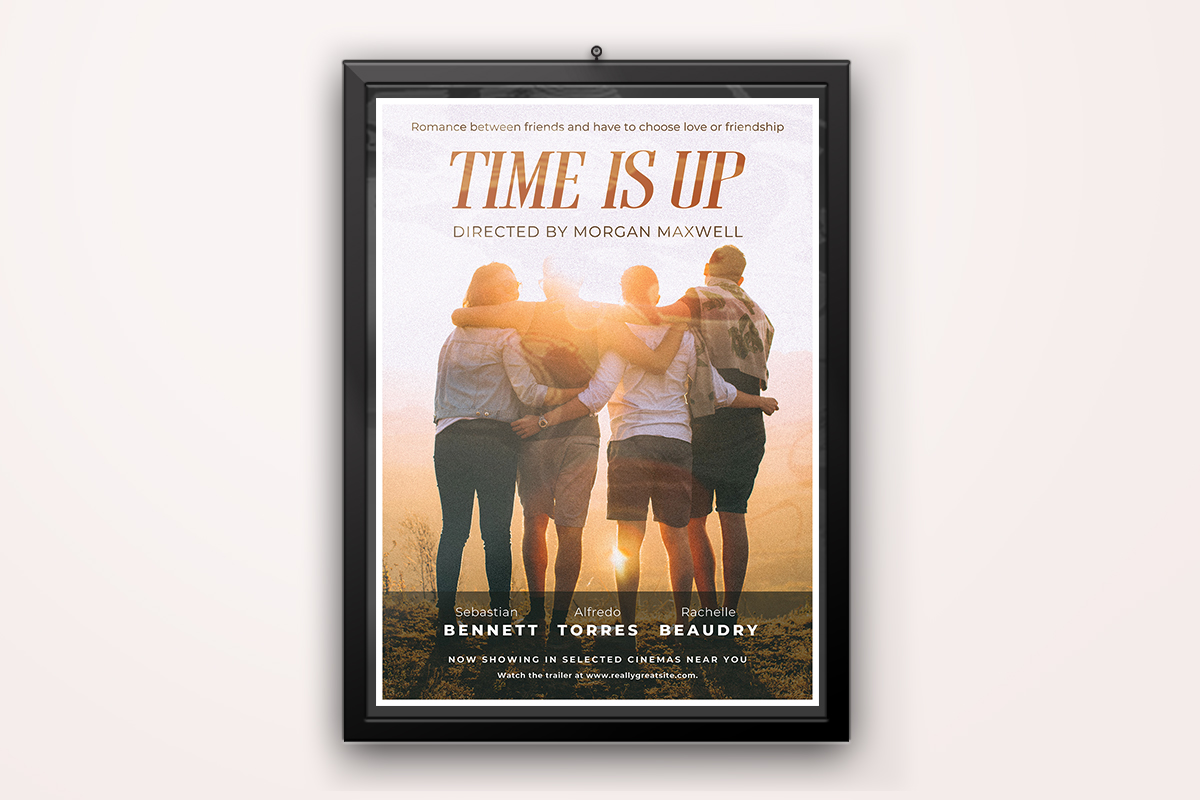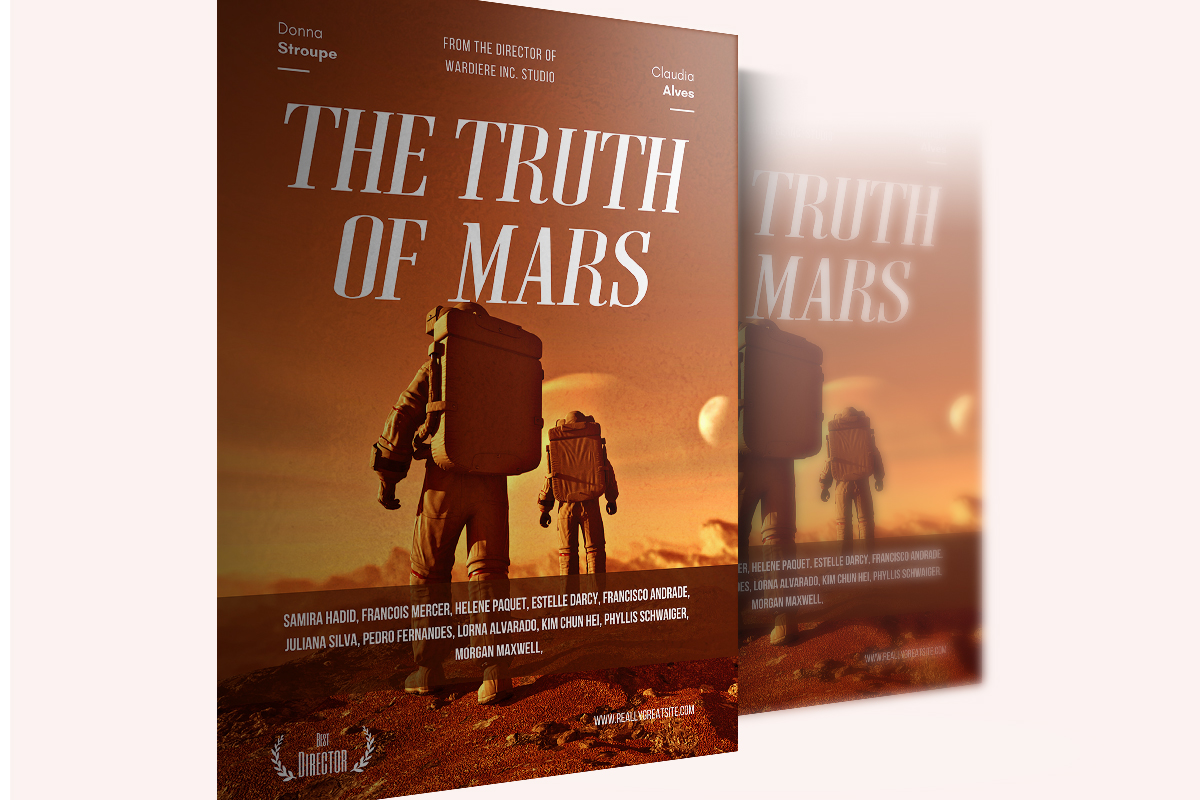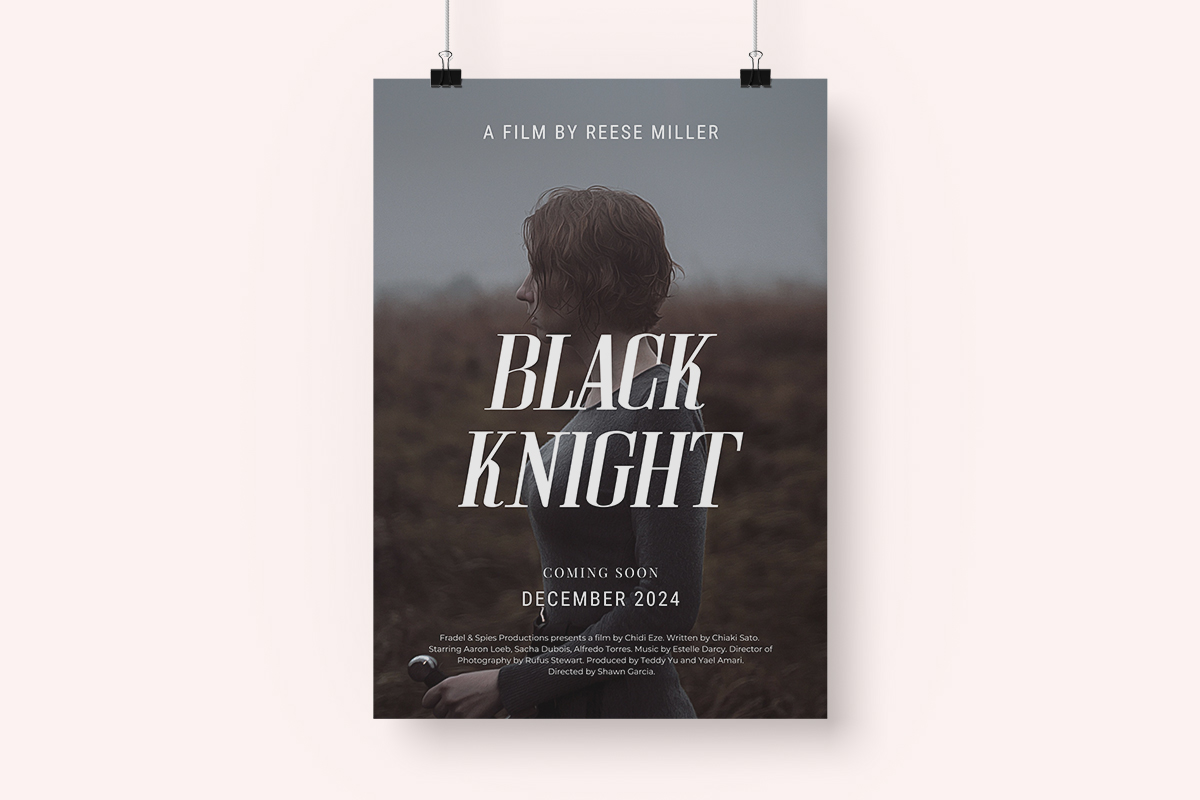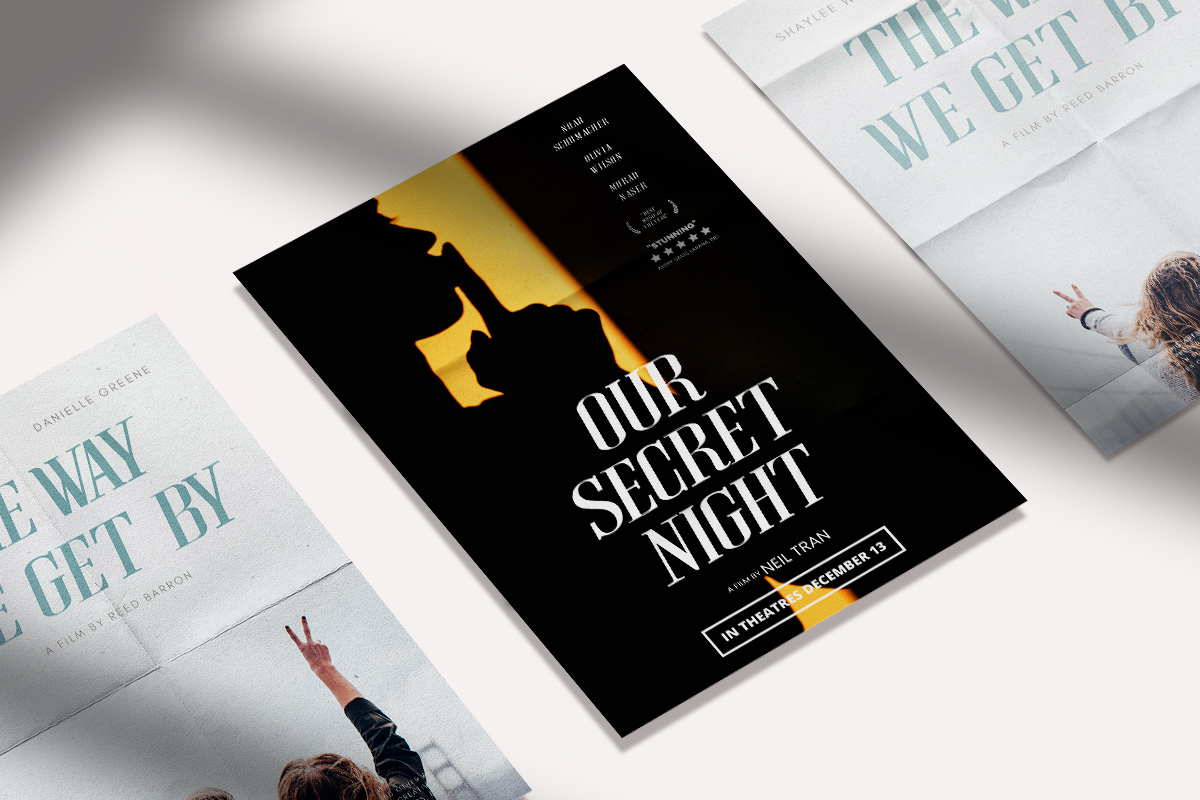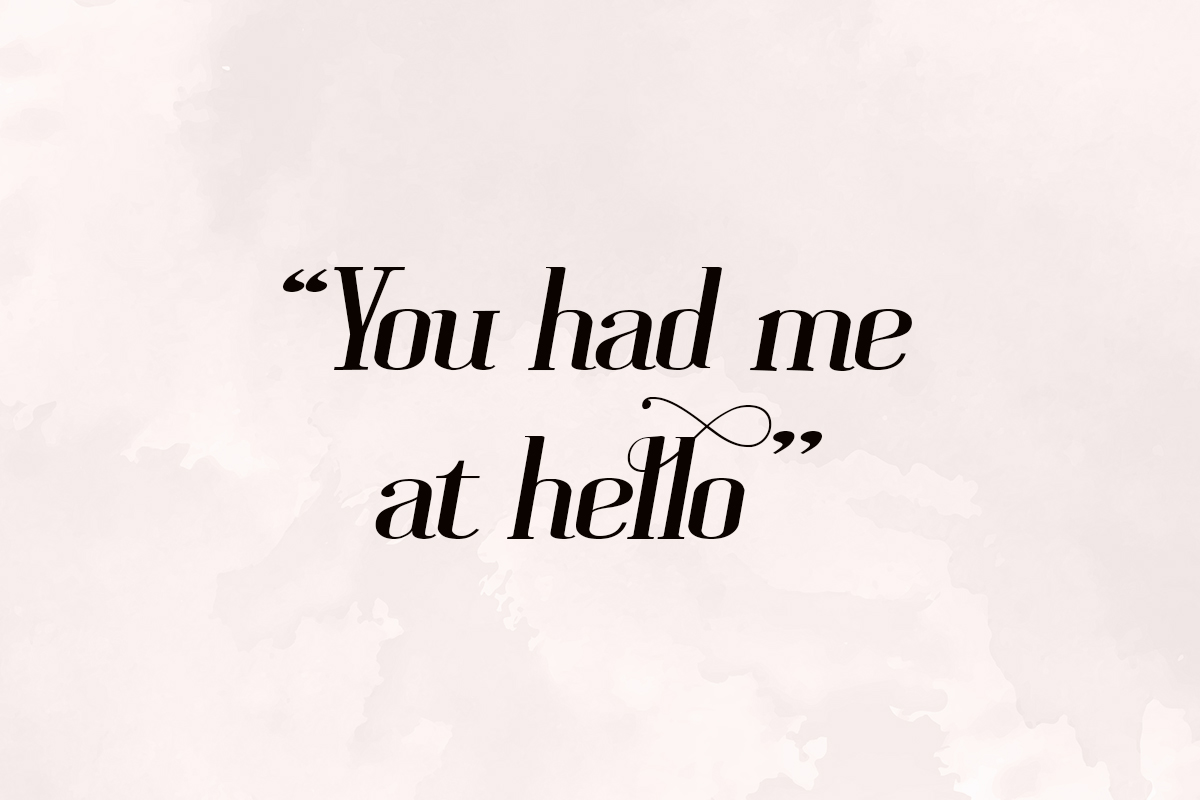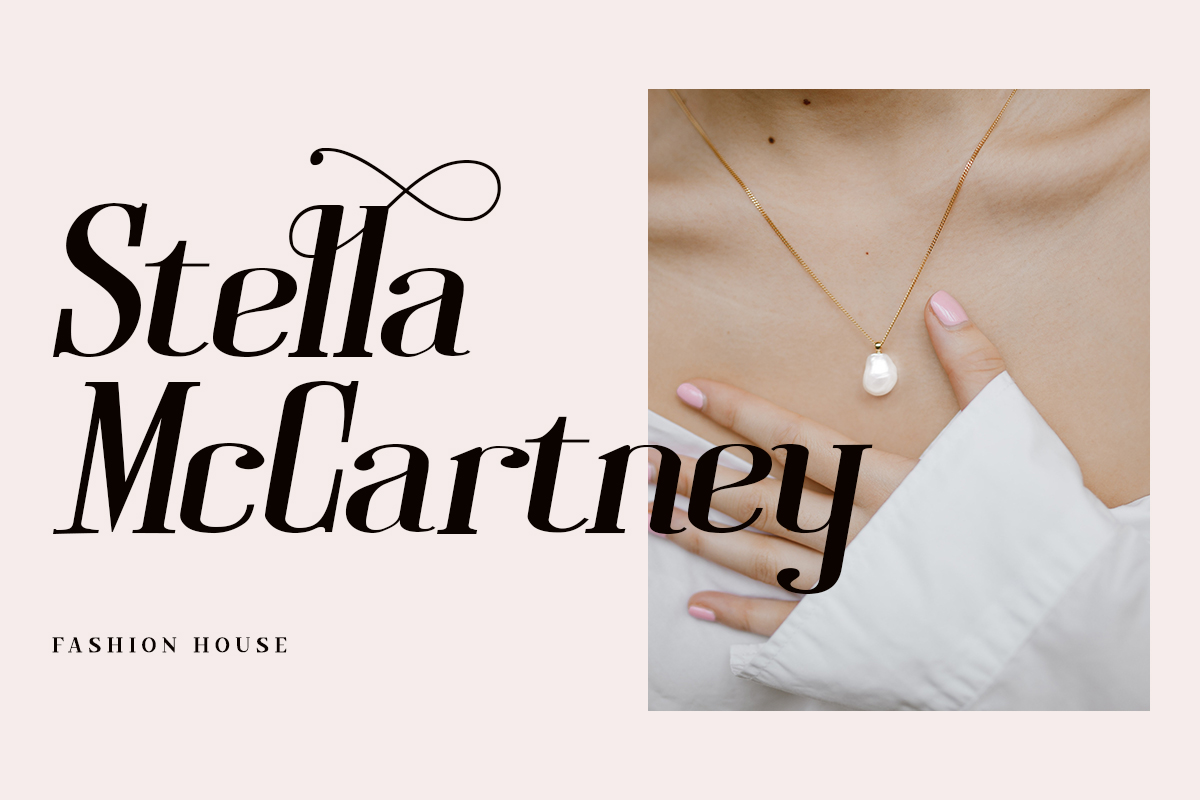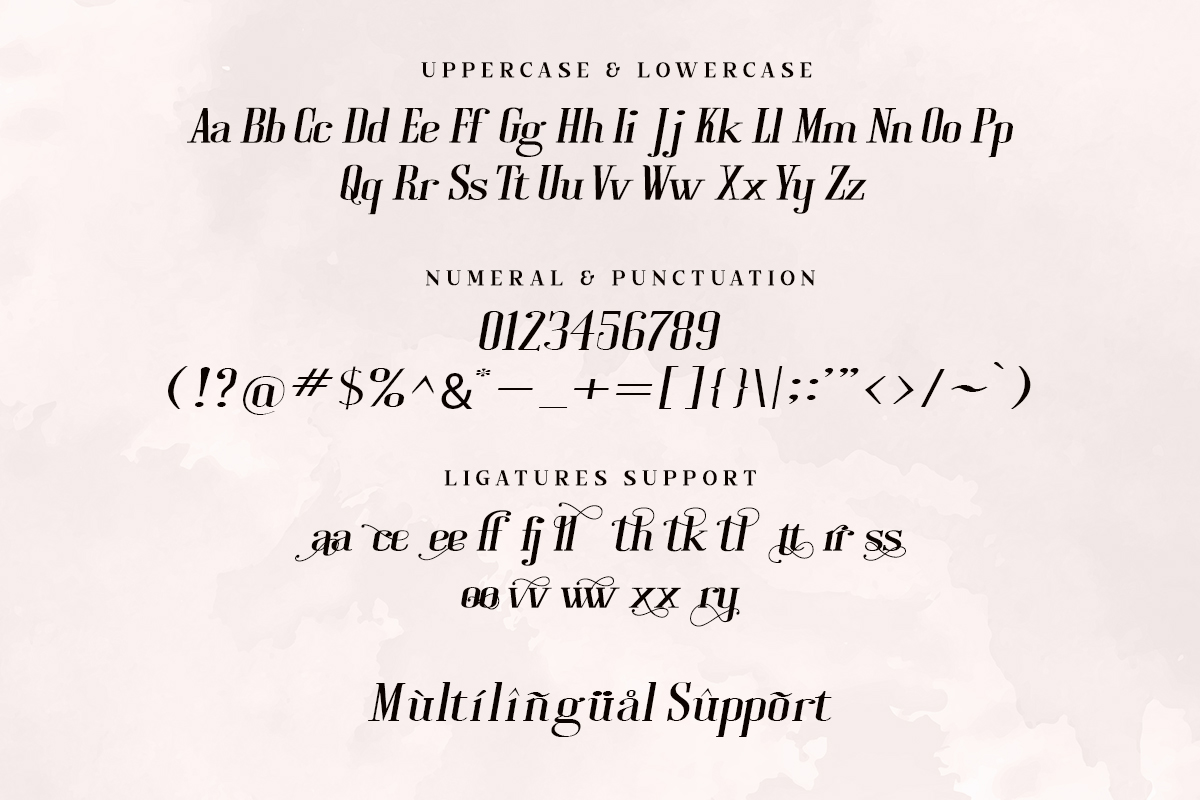
Rumania Classy Serif Font was designed to present a simple and bold impression to anyone who sees it. This is in line with the characteristics of the letters in the Texas Sans Serif Font is very clean and only has a small serif. This font stands tall and exudes a confident vibe. People who read a variety of texts using this type of font need not bother to be able to read and understand this font. In other words, a Rumania Classy Serif Font is legible. As the name implies, Rumania Classy Serif Font is very suitable to be used as a font for all products. Those who like simple yet aesthetic fonts will choose this font. Classic and classy impressions can use for banners, posters, and merchandise. This font can be printed small or large and still looks great from up close or from afar. This font can use for magazine covers and reading books. Not only that, Rumania Classy Serif Font can be used as a digital font. This font can use as a video intro and outro titles. This font is suitable for product branding. These can be product brand labels and advertising posters. This font can also use as a business card. Based on the explanation of Rumania Classy Serif Font functions, this font can use as a digital or print font. Our sans serif font collection is compatible to use as Figma fonts, Canva fonts, Freepik Fonts, and Adobe Fonts. They also work as Windows and Apple Fonts. For your social media needs, you can use and install fonts in our Sans Serif font collection to use as Instagram Fonts, Facebook Fonts, and Twitter Fonts.